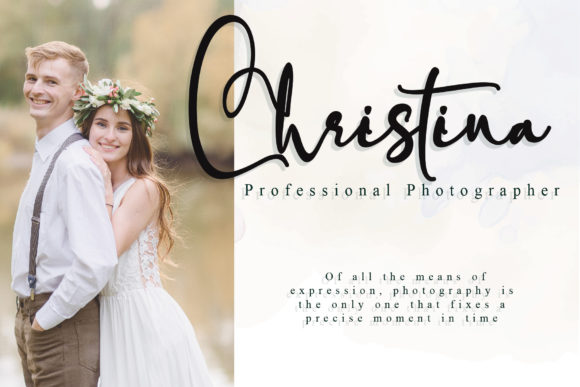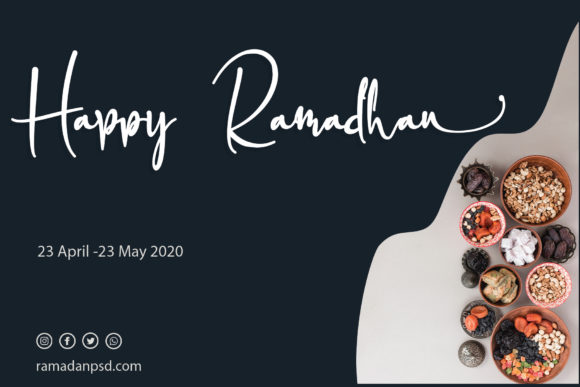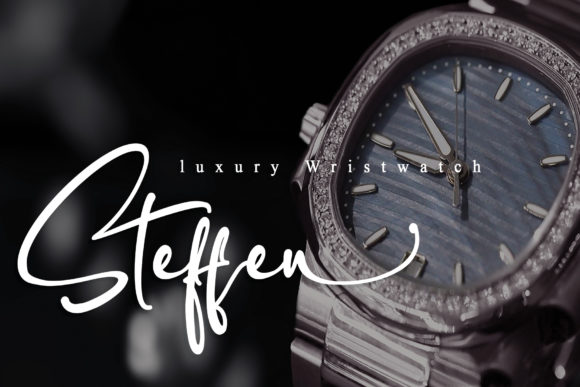
Introduction to Mikhaella Font
Mikhaella is a beautiful light handwritten font with a unique feel and looks stunning.
It will add a luxury spark to any design project This font is PUA encoded which means you can access all of the amazing glyphs and swashes with ease.
Mikhaella Font offers exceptional quality and versatility, making it a valuable addition to your design toolkit. Whether you’re creating for personal projects or commercial use, Mikhaella Font delivers professional results.